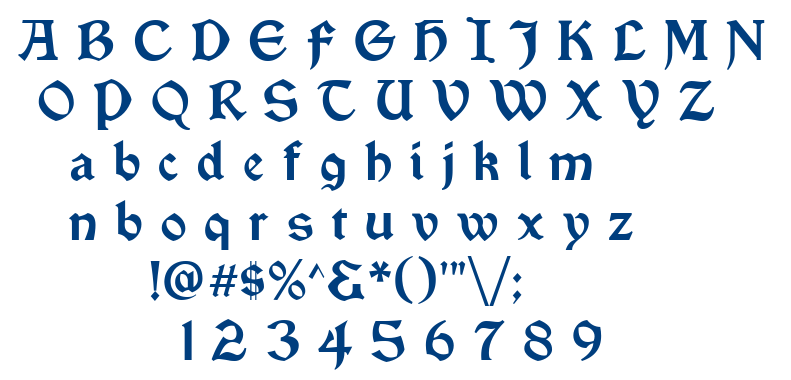
Tiny Small Medium Large Vinque font typodermic Website vinque.ttf Download 1378 downloads Freeware Category: Gothic » Modern Vinque is an Arts & Crafts font. Don’t forget to read the files inside the zip for details. Updated in 2012. Character Map specimen sheet